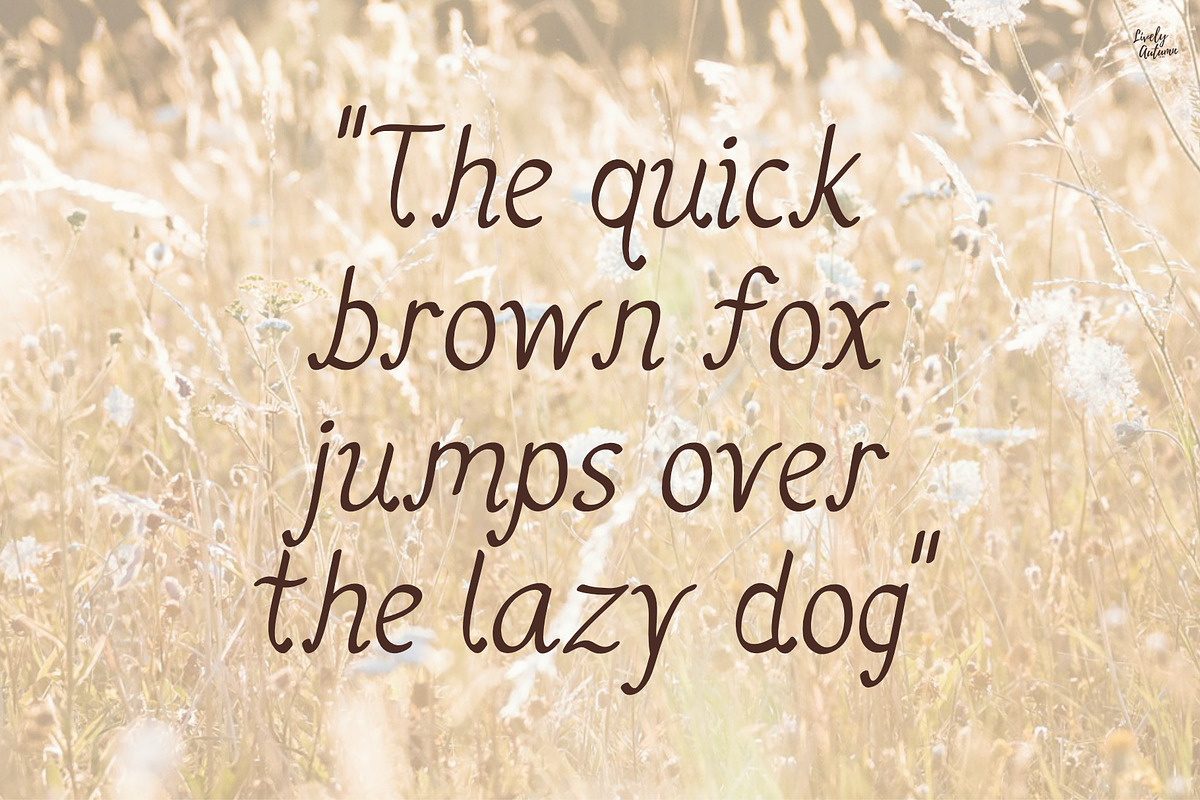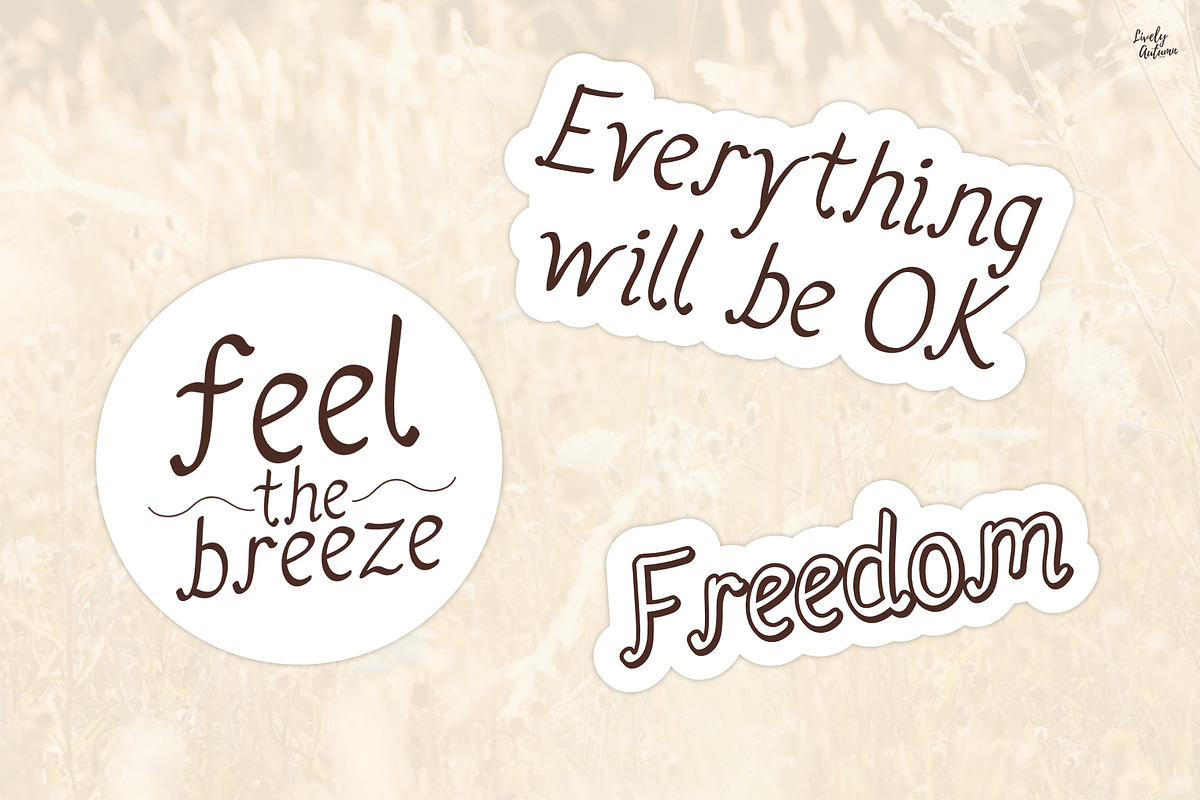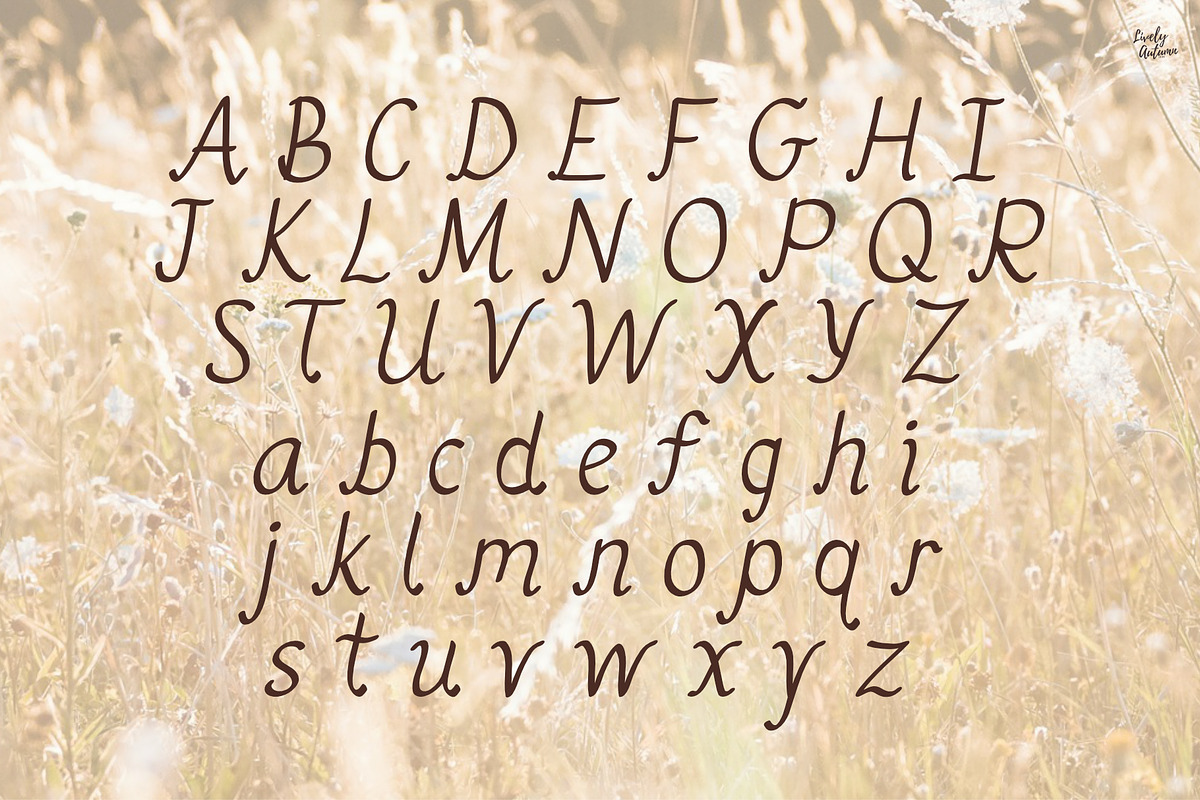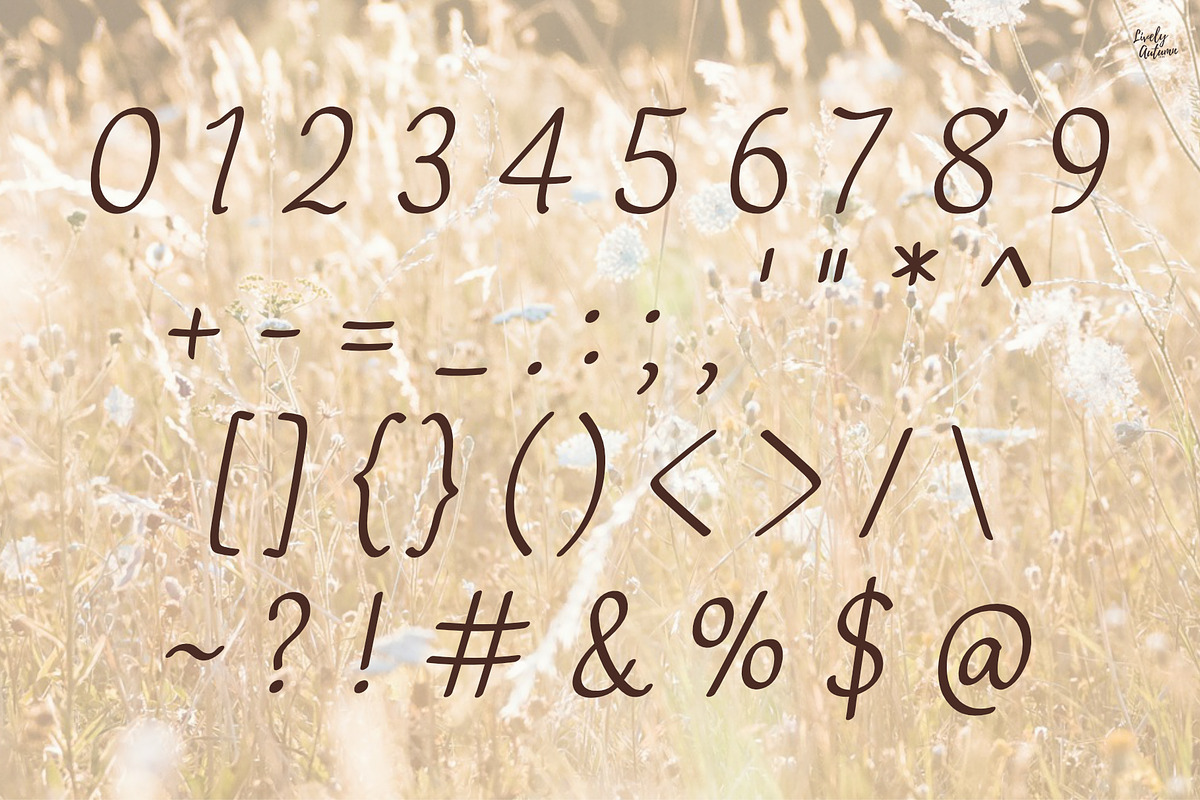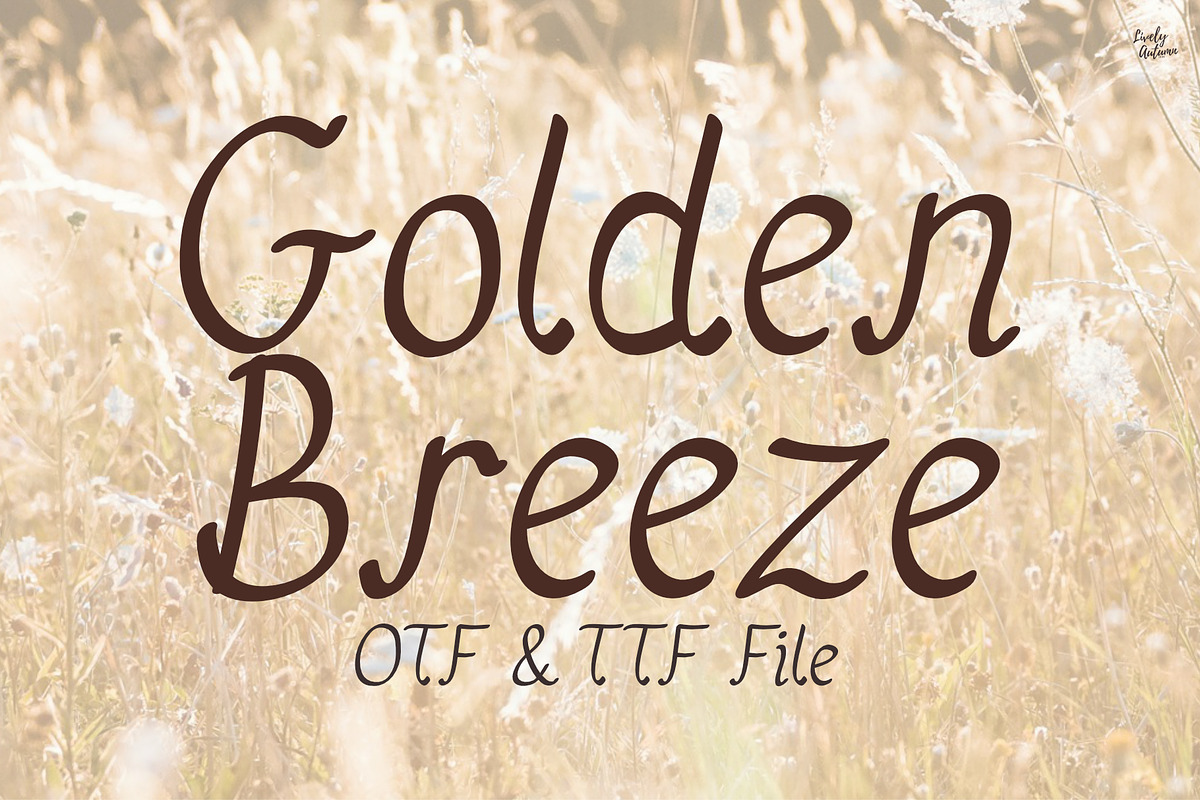
Golden Breeze | Handwriting font
Golden Breeze Font is an elegant handwritten font. Perfect for your personal projects and various projects. From invitations to posters, social media graphics, journals, stickers and much more.
- Font includes: uppercase, lowercase, numbers, and punctuation